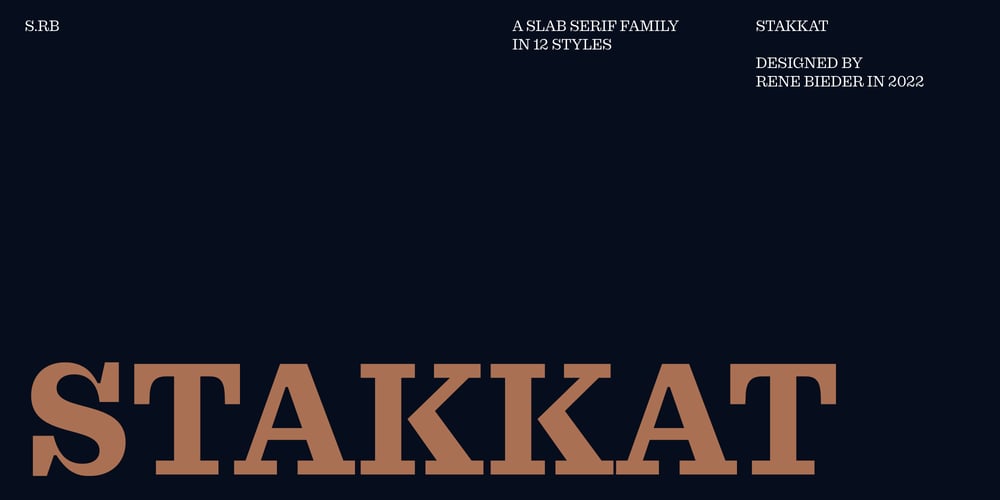
Stakkat Font Family was designed by René Bieder and published by René Bieder. Stakkat contains 12 styles and family package options. Introducing the Stakkat family, a contemporary interpretation of the iconic Clarendon typeface that revolutionized the world of typography when it first emerged. While Clarendon may have acquired a dusty and old-fashioned appearance after 150 years, it served as the ideal foundation for a vibrant and rejuvenated design. Stakkat revitalizes the genre, infusing it with captivating details and flamboyant italics that ignite visual intrigue. Stakkat breathes new life into headlines, advertisements, and branding materials, capturing attention with its striking presence and refined craftsmanship. The bold letterforms command the viewers gaze, leaving a lasting impression that transcends traditional boundaries.Stakkat’s italics embody a flamboyant flair, adding a touch of expressive elegance to any design. These slanted characters exude a sense of motion and creativity, injecting excitement into your typographic compositions. Whether used for print or digital applications, Stakkat’s versatility shines through, adapting seamlessly to various contexts and enhancing the visual impact of your messages.